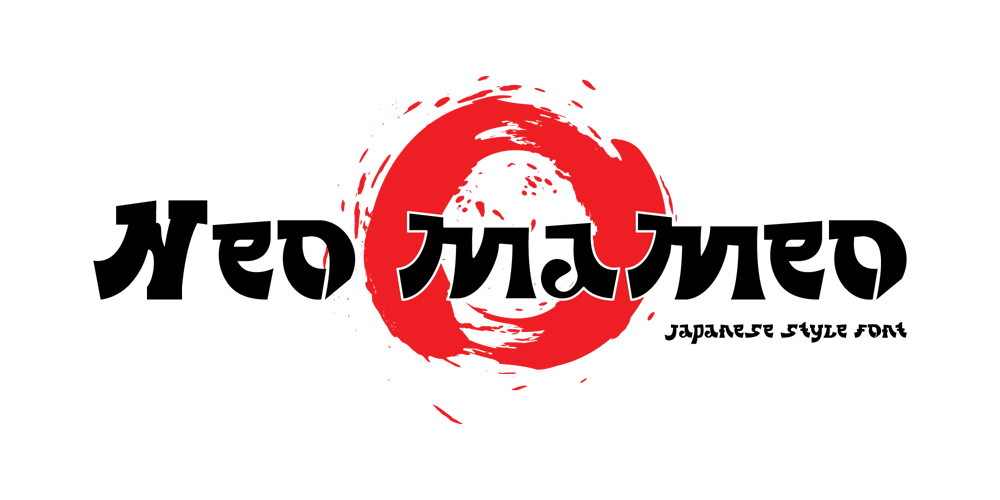
Neo mameo Font Family was designed by Muhammad Ansari and published by Kaidosan. Neo mameo contains 1 styles and family package options. Neo mameo is a Japanese Style typeface that is ideal for projects that require a distinctly Japanese touch. This typeface will add uniqueness and creativity to your work with a beautiful style and eye-catching look.This font character is taken from Japanese traditional Japanese style. This font will leave a lasting impact and quickly grab the attention of potential customers. This font provides a vivid visual effect. I hope this font can provide solutions in your business and activities.